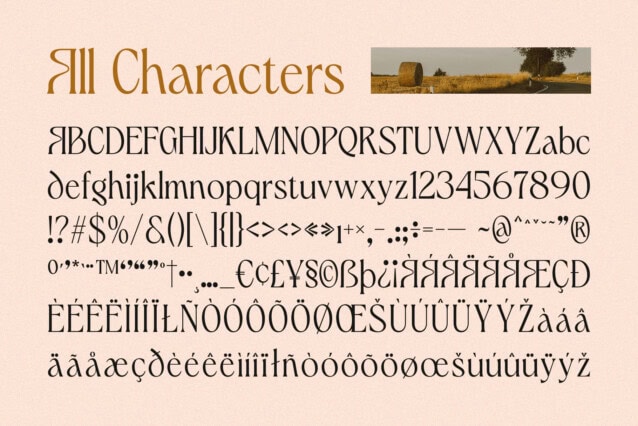
CS Finegan Font
CS Finegan Font is a modern serif display font that features sleek, slim letterforms, combining contemporary sophistication with timeless elegance. Its refined, minimalistic design evokes a sense of luxury, charm, and high-end appeal. The delicate curves and clean structure make it the perfect choice for projects that demand a sophisticated and polished look, whether for branding or high-profile editorial designs.